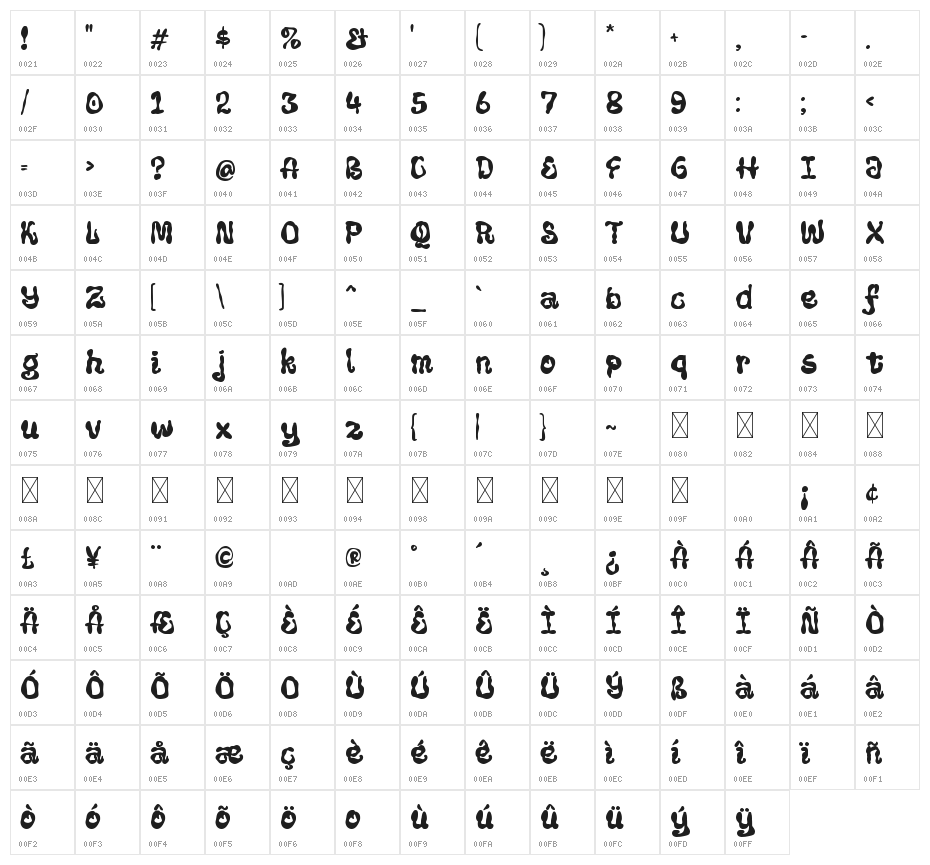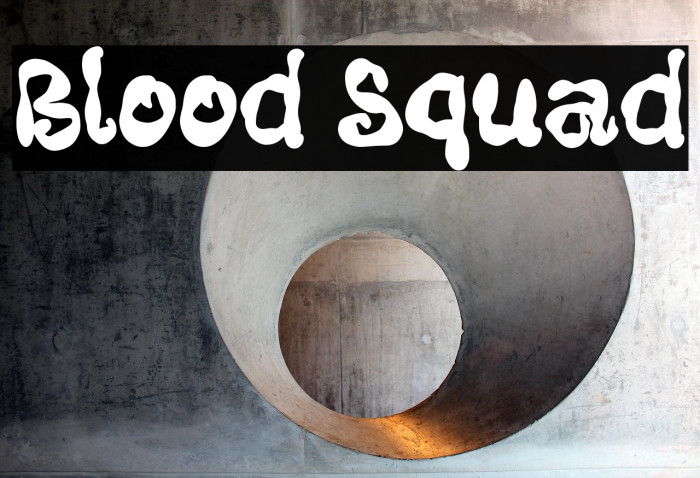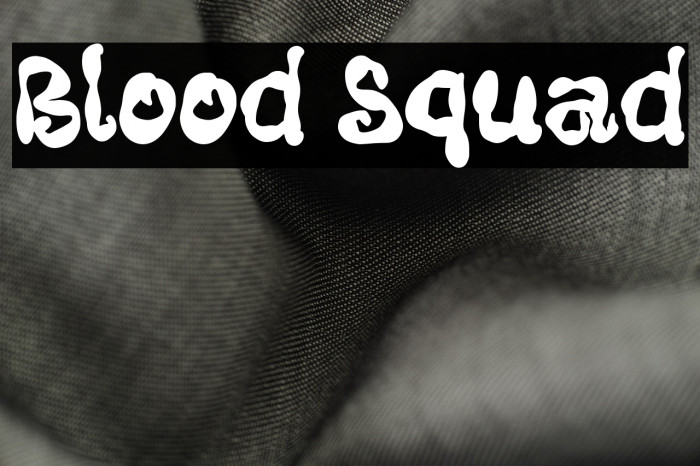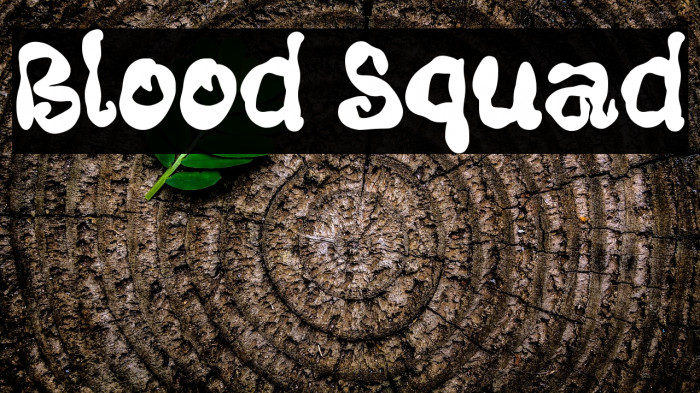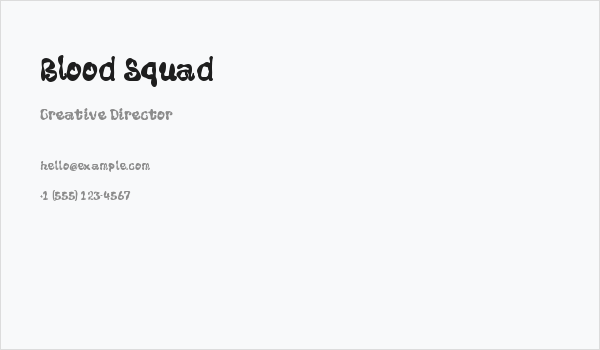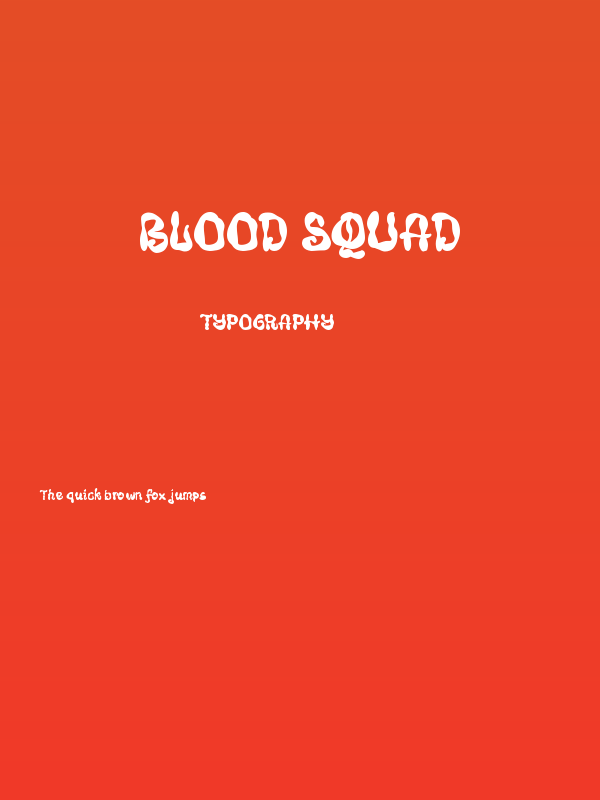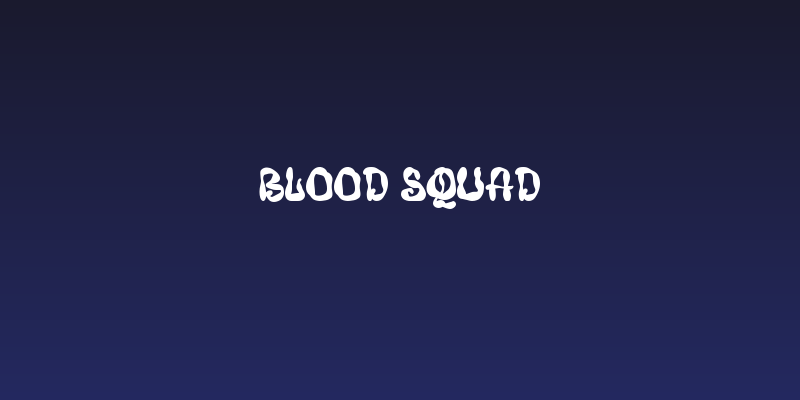
Blood Squad Font
Blood Squad Description
This font features a bold, organic design with a dripping effect reminiscent of liquid or blood. The characters are rounded and irregular, giving them a unique, hand-drawn appearance. The uppercase and lowercase letters maintain a consistent style, with exaggerated curves and playful forms. Numbers and special characters follow the same aesthetic, making the font cohesive and visually striking. The overall look is both dramatic and whimsical, suitable for projects that require a distinctive and eye-catching typeface.
BLOOD-SQUAD UPPERCASE
BLOOD-SQUAD LOWERCASE
BLOOD-SQUAD OTHER CHARS
| Use Case | Logos, Posters, Themed Events |
| Proposed Projects | Ideal for Halloween-themed designs, horror movie posters, edgy branding, or any project needing a dramatic and unique typeface. |